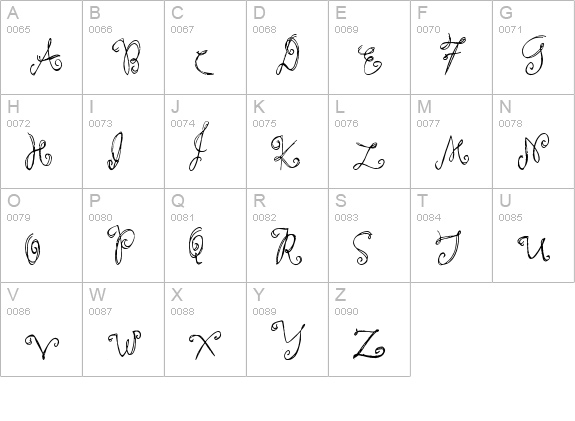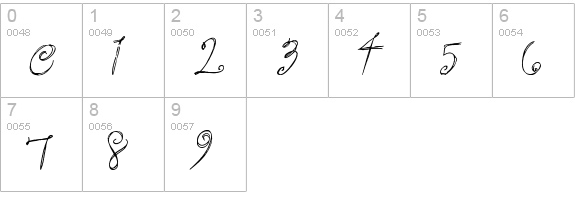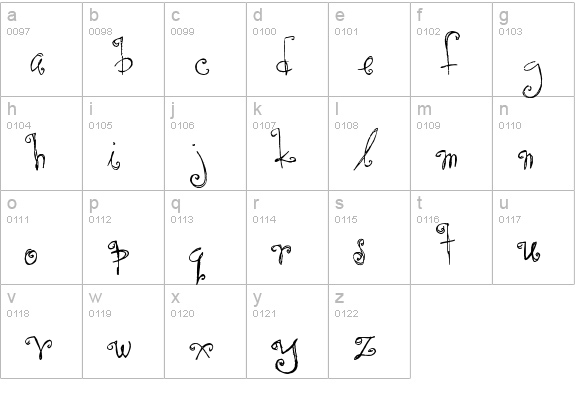
Southern Accent Belch Font Details
Introducing Southern Accent Belch font, a delightful and whimsical typeface that captures the essence of the charming Southern drawl. With its unique blend of rustic elegance and playful flair, this font is perfect for adding a touch of Southern hospitality to your projects. Southern Accent Belch font is freely available to download at FontsMarket.com, making it accessible to all who wish to infuse their designs with a bit of Southern charm. Whether you're creating invitations, posters, logos, or any other design project, this font is sure to bring a warm and inviting feel to your work. Embrace the spirit of the South with Southern Accent Belch font and let its distinctive style elevate your designs to new heights. Download it today and add a touch of Southern hospitality to your creations!